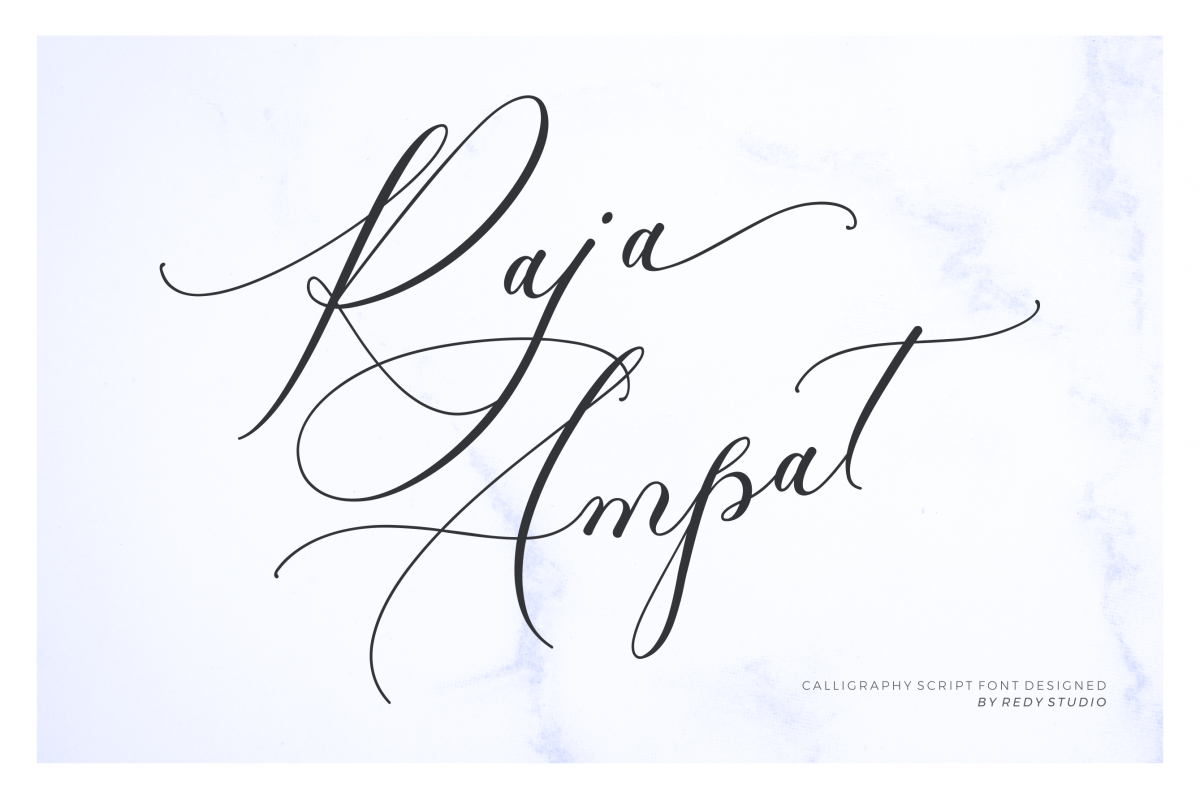
Raja Ampat
Introducing Raja Ampat is a modern calligraphy font with lovely movements. Raja Ampat provides beautiful letter essence for any design project including wedding invitation, card, Quote, Branding, etc. This font also has lovely ligatures, alternative letters and swashes.